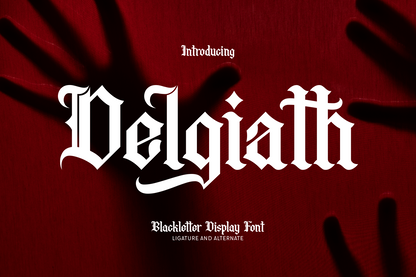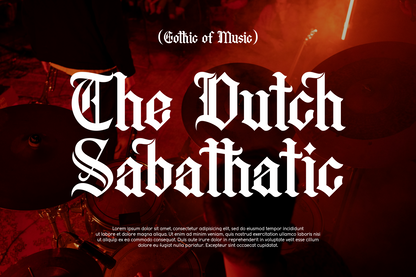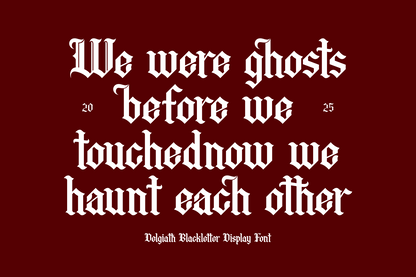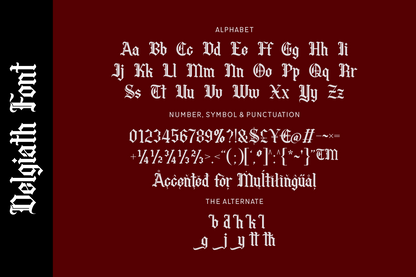
Delgiath is a gothic blackletter display font with dramatic ligatures and sharp flourishes. Its haunting aesthetic is perfect for horror themes, fantasy titles, and dark branding projects.